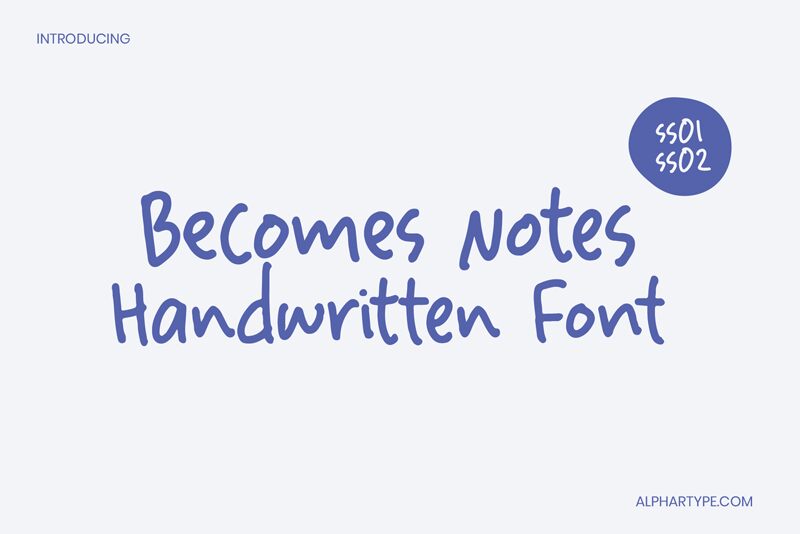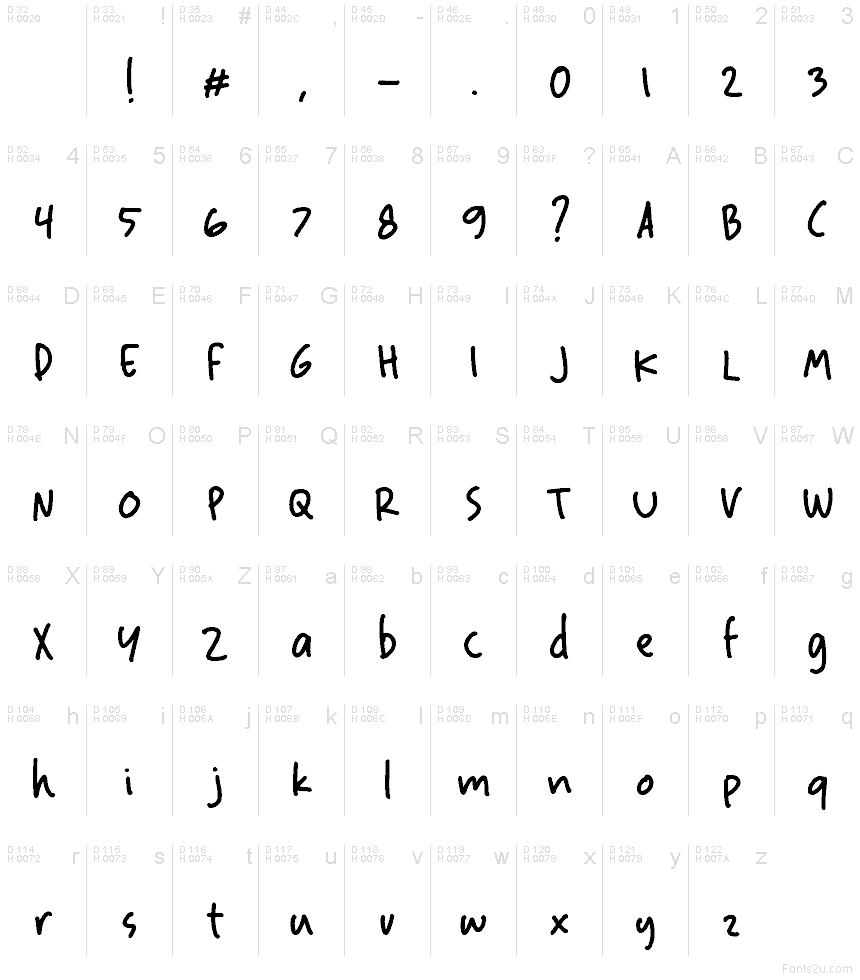
Becomes Notes Regular
Becomes Notes font by alphArtype is a free handwritten font that turns casual scrawl into clean, readable lettering. The strokes feel like fresh marker on smooth paper—loose and friendly, but with steady spacing and even rhythm that keep text from looking messy. Its rounded shapes and gentle slant give it an easygoing, conversational tone that still holds together in longer lines of copy.
Using Becomes Notes, you can write quotes, planners, journaling pages, social posts, classroom materials, and product labels that feel personal without sacrificing clarity. This free font shines when you want handwriting that doesn’t wobble or crowd, so it works beautifully at medium sizes where the texture can breathe. Pair Becomes Notes with a simple sans serif for captions or small print to keep layouts balanced and readable.